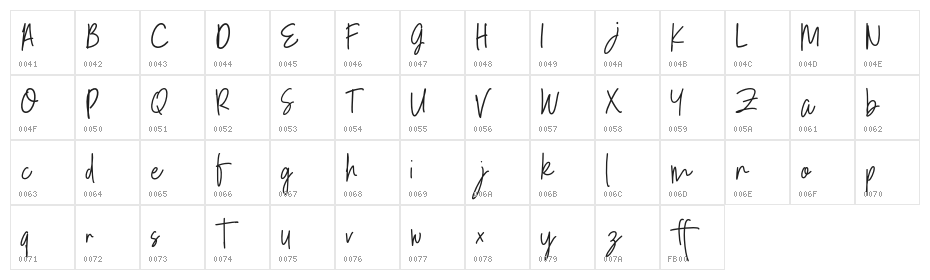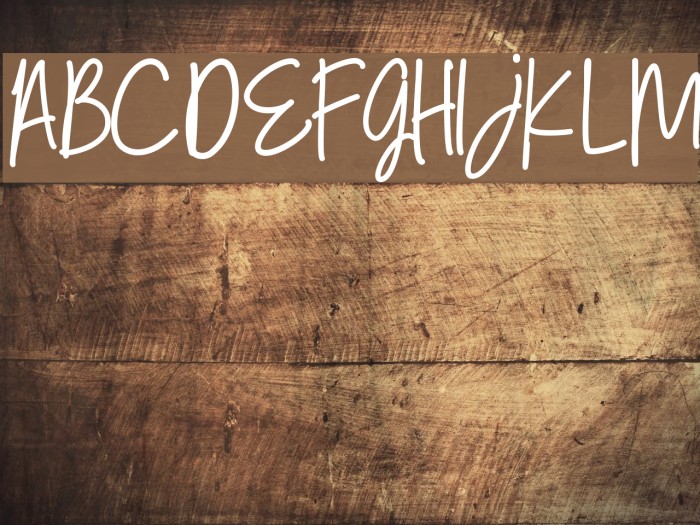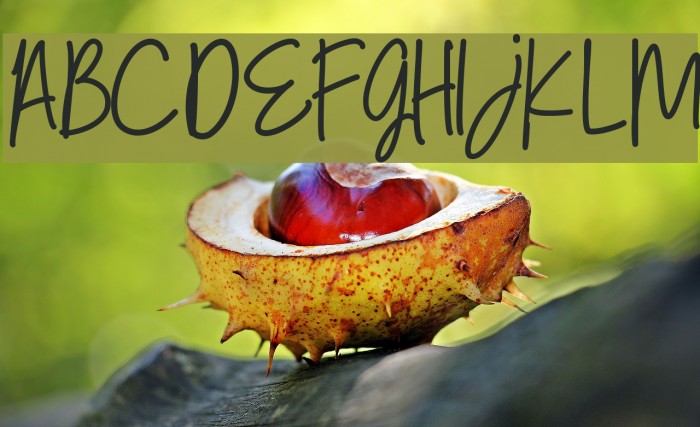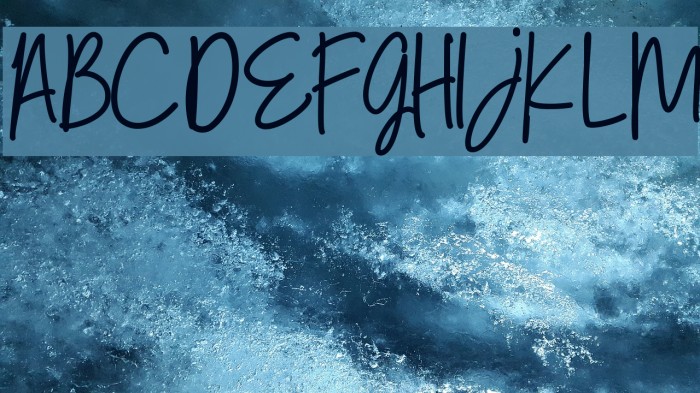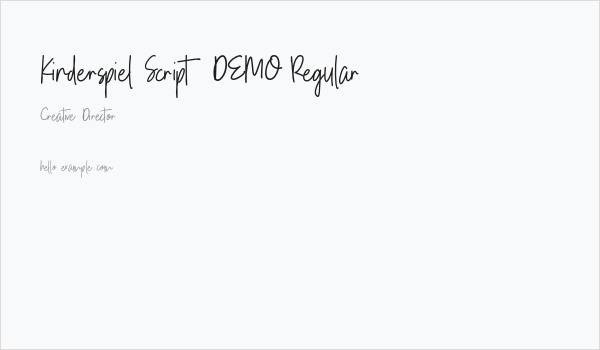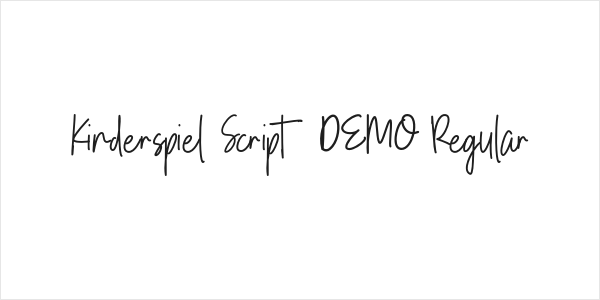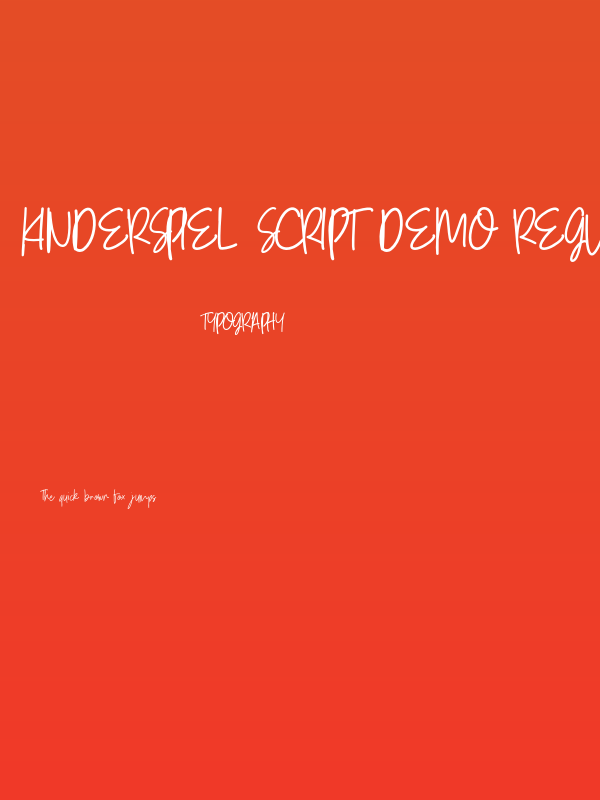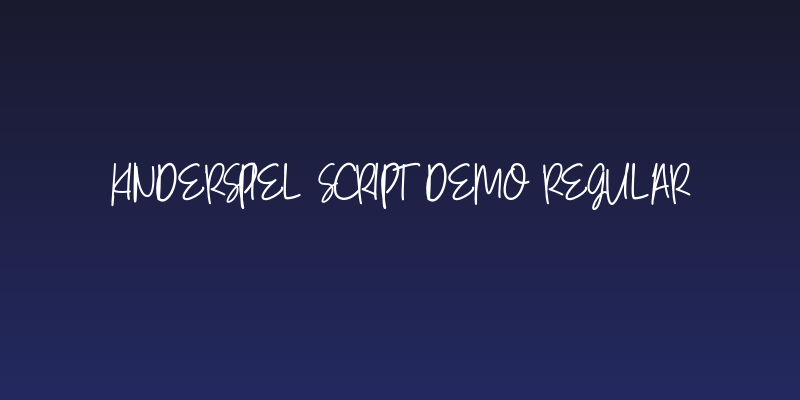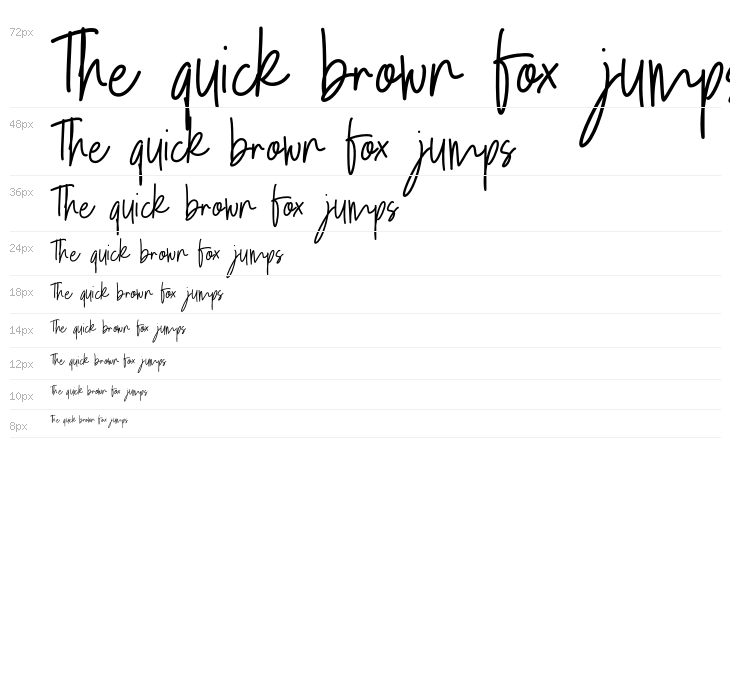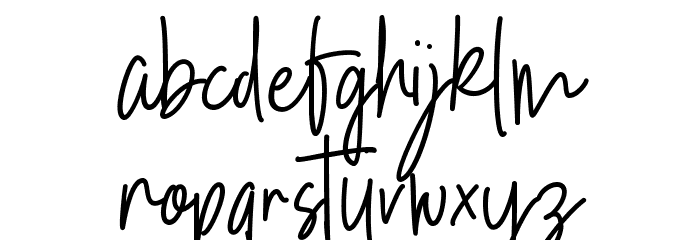
Kinderspiel Script DEMO Regular Font
Kinderspiel Script DEMO Regular Description
This font exudes a playful and casual handwritten style, characterized by its fluid and dynamic strokes. The letters are slightly slanted, giving it a natural and spontaneous feel, reminiscent of personal notes or informal correspondence. The uppercase letters are bold and prominent, while the lowercase letters maintain a consistent flow with occasional loops and curves that add to its charm. The overall appearance is lively and energetic, making it suitable for projects that require a touch of personality and warmth. The font's informal nature makes it ideal for creative designs, children's books, or any project that benefits from a friendly and approachable aesthetic.
| Use Case | Creative designs, Informal branding, Personal notes |
| Proposed Projects | Ideal for children's books, creative designs, personal notes, and informal branding. |